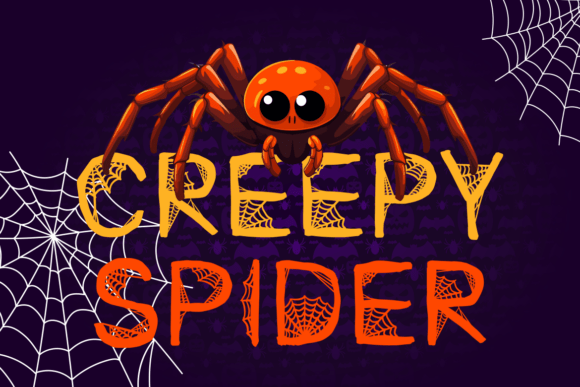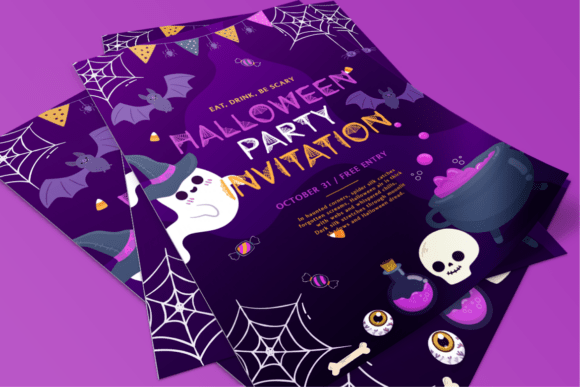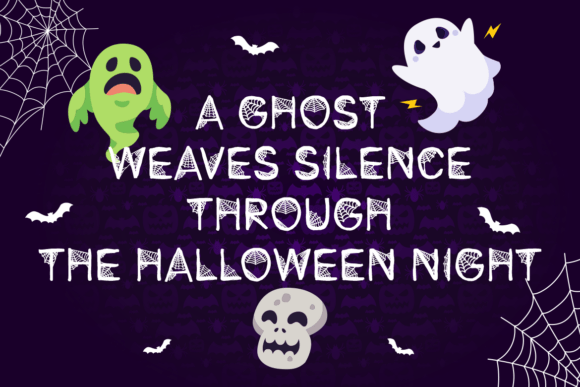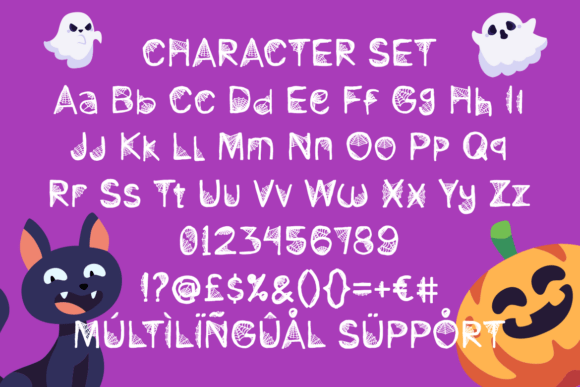
Introduction to Midnight Spider Font
As a designer, have you ever felt the thrill of crafting a project that captures the essence of Halloween? The spooky atmosphere, the eerie ambiance, and the thrill of creating something truly unique? If so, you’re in for a treat. Introducing the Midnight Spider Font, a typeface that weaves a spellbinding charm into your designs, transporting you to a world of mysterious elegance and whimsical wonder.
With its intricate web-like design, the Midnight Spider Font is the perfect addition to any creative project, from logo designs to branding materials, invitations, packaging, posters, and captivating book covers. Its high-quality, transparent background allows for seamless integration into any design, making it a valuable resource for designers looking to add an unforgettable Halloween vibe to their work.
Key Features of Midnight Spider Font
- Unique design with a blend of modern and vintage elements, perfect for creative projects.
- High-quality font with a transparent background, ideal for use on various design resources.
- The font comes in two weights: Regular and Bold, allowing for versatility in design.
- Perfect for use in a variety of design projects, including logos, branding materials, and digital art.
Honest Review: Midnight Spider Font
One of the things that stands out about the Midnight Spider Font is its high quality design. The font features a transparent background, which makes it easy to use in a variety of creative projects. The font itself is a unique and stylish choice that adds a touch of sophistication to any design.
Here are some of the things that work well with the Midnight Spider Font: ✨
- Unique and stylish design
However, there are a few limitations to keep in mind: ⚠️
- The font may not be suitable for very small text sizes
- It may not be the best choice for designs that require a lot of bold or italic text
Overall, I’m impressed with the Midnight Spider Font and would definitely recommend it to designers looking for a high-quality design resource for their creative projects.
Tips for Getting the Most Out of the Midnight Spider Font
Use the font in combination with other design elements to create a unique and eye-catching visual effect.
Experiment with different font sizes, colors, and styles to achieve the desired look.
The Midnight Spider Font is perfect for creative projects such as:
Designing a logo or brand identity
Creating a social media graphic or advertisement
Developing a website or landing page
Alternatives to Midnight Spider Font
Creepster Font
Creepster is a high-quality, handwritten font suitable for creative projects that require a spooky or eerie atmosphere. It features a transparent background, making it easy to use on any design surface. This font is perfect for Halloween-themed designs, horror movie posters, or any other project that needs a creepy vibe.
Creepster is similar to Midnight Spider Font in its spooky and mysterious feel, but it has a more cursive and elegant design. It’s available for free download and is a valuable resource for designers working on creative projects.
Creepsville Font
Creepsville is a free font that offers a similar, yet more playful take on the spooky theme. It’s ideal for designs that need a bit of whimsy and humor, such as children’s Halloween costumes or spooky-themed party invitations.